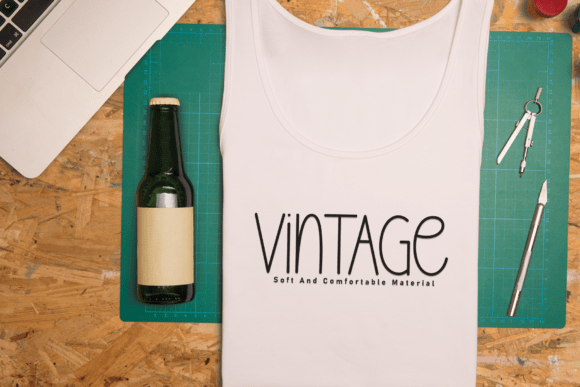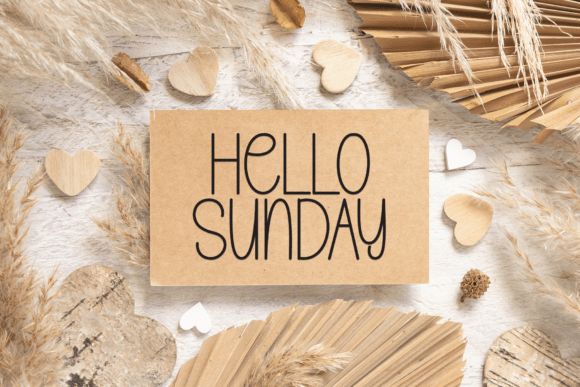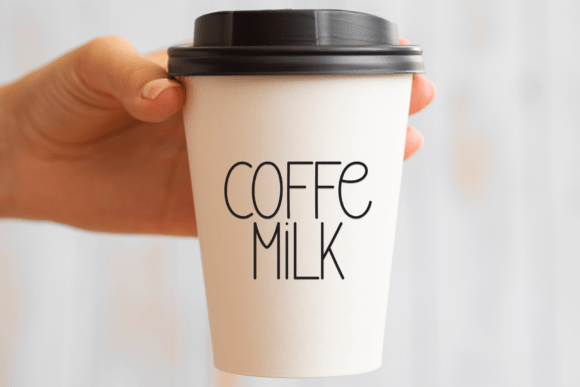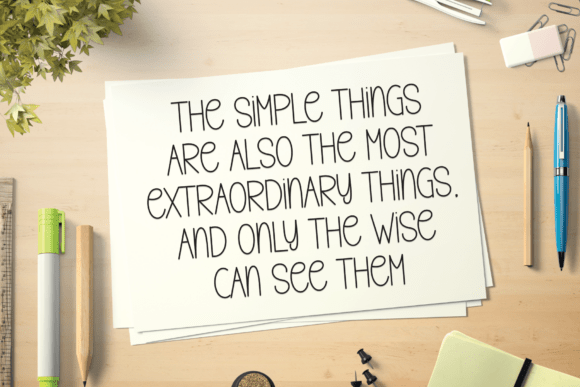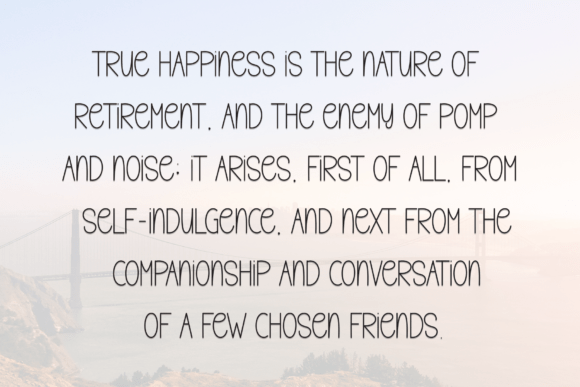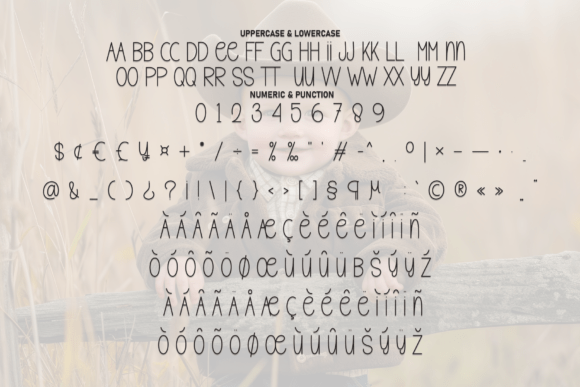
Baby Cowboy Font: Add a Whimsical Edge to Your Designs
Welcome the endearing allure of a hand-drawn display font, distinguished by its inviting warmth and affectionate character. This enchanting font transforms beyond the realms of just cute and jovial, evolving into a crucial part of your design toolkit that adds a whimsical edge to your creations. Ideal for constructing engaging wedding invites or enchanting greeting cards, it adds a dash of happiness to any design it adorns. So, whether you aim to pen a touching message or inject a light-hearted spirit into your work, this font serves as your ideal creative solution.
The Charm of Hand-Drawn Fonts
In the world of typography, hand-drawn fonts have gained immense popularity for their unique and personalized touch. They offer a refreshing break from the conventional and often sterile digital fonts that flood the design landscape. The Baby Cowboy Font is one such gem that has captured the hearts of designers and crafters alike with its distinctive charm.
What Makes Baby Cowboy Font Special?
This delightful font boasts an array of characteristics that make it an indispensable asset for any designer or crafter. Here are a few reasons why Baby Cowboy Font stands out:
- Warmth and Affection: The font exudes a sense of warmth and affection, making it perfect for designs that require a personal touch.
- Whimsical Edge: Its playful and whimsical nature adds a dash of fun to any design, making it ideal for projects that require a light-hearted approach.
- Versatility: The Baby Cowboy Font can be used for a wide range of design projects, from wedding invites and greeting cards to posters and social media graphics.
- Easy to Read: Despite its playful nature, the font remains easy to read, ensuring that your message is conveyed clearly and effectively.
Design Applications for Baby Cowboy Font
The Baby Cowboy Font is an incredibly versatile font that can be used in various design applications. Here are a few ideas to get you started:
- Wedding Invites: Add a touch of whimsy and romance to your wedding invites with this delightful font.
- Greeting Cards: Create enchanting greeting cards for special occasions like birthdays, anniversaries, and holidays.
- Posters and Flyers: Use the Baby Cowboy Font to create eye-catching posters and flyers for events, promotions, or products.
- Social Media Graphics: Add a playful touch to your social media graphics, including Facebook posts, Instagram stories, and Twitter headers.
Tips for Using Baby Cowboy Font
To get the most out of the Baby Cowboy Font, here are a few tips to keep in mind:
- Pair with Other Fonts: Experiment with pairing the Baby Cowboy Font with other fonts to create a unique and visually appealing combination.
- Play with Colors: Don’t be afraid to experiment with different colors to add an extra layer of personality to your design.
- Use it Sparingly: While the font is playful and fun, it’s essential to use it sparingly to avoid overwhelming the design.
In conclusion, the Baby Cowboy Font is a delightful addition to any design toolkit. Its unique blend of warmth, affection, and whimsy makes it perfect for a wide range of design projects. Whether you’re a designer or crafter, this font is sure to inspire your creativity and add a touch of personality to your work. So why not give it a try and see how it can transform your designs?
Get Ready to Fall in Love with Baby Cowboy Font